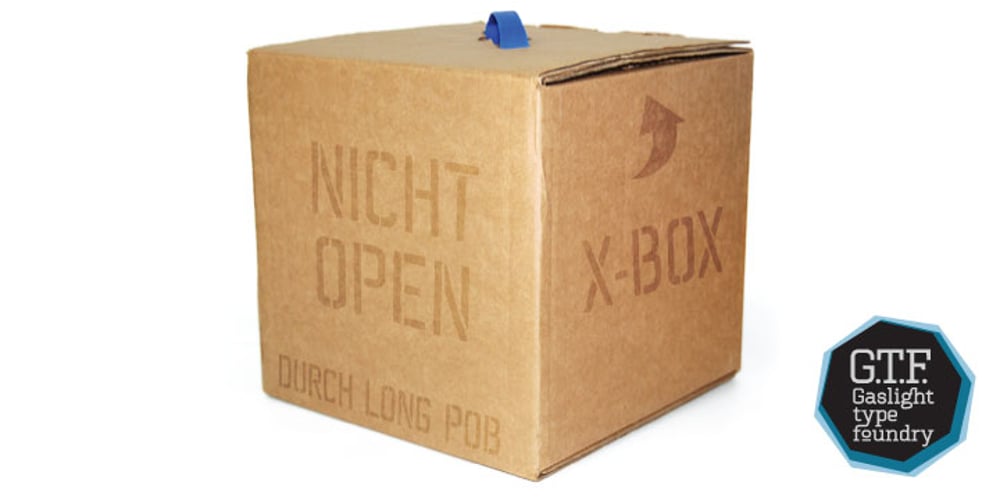
Marshrut Font Family was designed by Valery Zaveryaev and published by Gaslight. Marshrut contains 1 styles and family package options. Another stencil font? Oh, yes. Circular trip time of bus number 17 is so long and designer has one relaxation: look over the letters in the bus. So many tables with bus stop names in it! And now you can write it yourself – enjoy new Marshrut Stencil typeface.